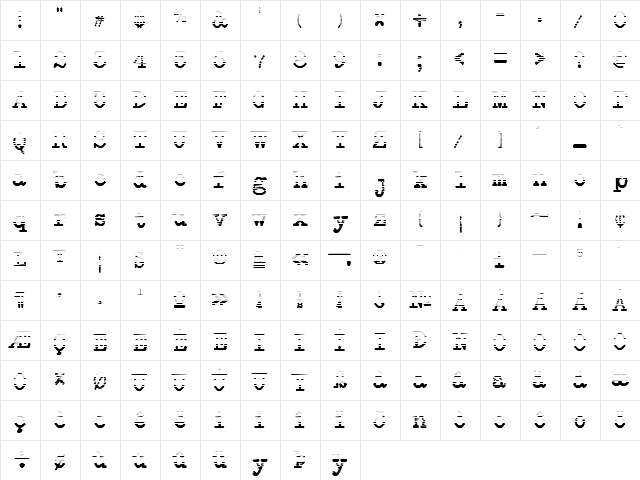
NeoBulletin Gradient Regular
Design Context for NeoBulletin Gradient Typeface
NeoBulletin Gradient is a composed and adaptable typeface that performs quietly and consistently across a wide range of design contexts.
Pro Tip: Use NeoBulletin Gradient in both headline and body roles to test its range before committing to a single application.